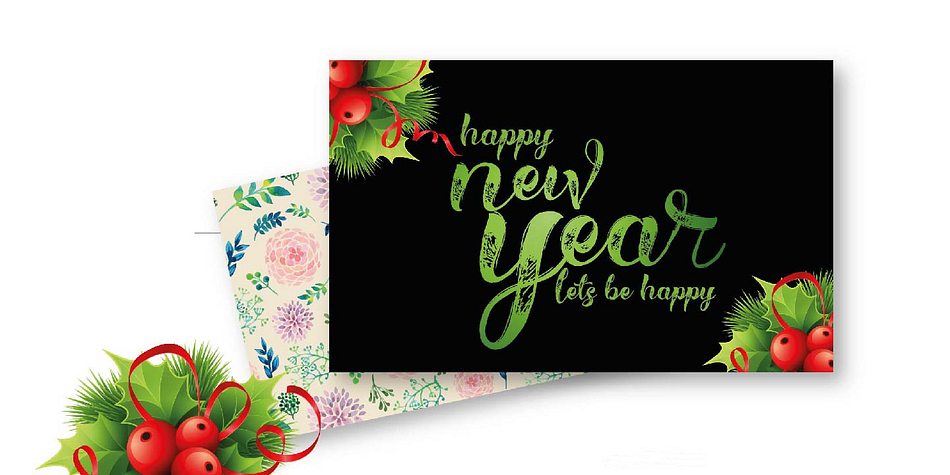
Hellvina Hand Script
Hellvina Hand Script is a script and modern calligraphy font published by olexstudio.
Hellvina Hand Script is a modern Calligraphy typeface.
It is suitable for wedding invitations, greeting cards, T-Shirts, Logo or any design that you create.
Hellvina Hand Script is a modern Calligraphy typeface. It is suitable for wedding invitations, greeting cards, T-Shirts, Logo or any design that you create.
Hellvina Hand Script comes with a complete set of standard characters, punctuation and international glyphs. The alternative characters were divided into several OpenType features such as Ligature, Alternates and has given PUA unicode (specially coded fonts).